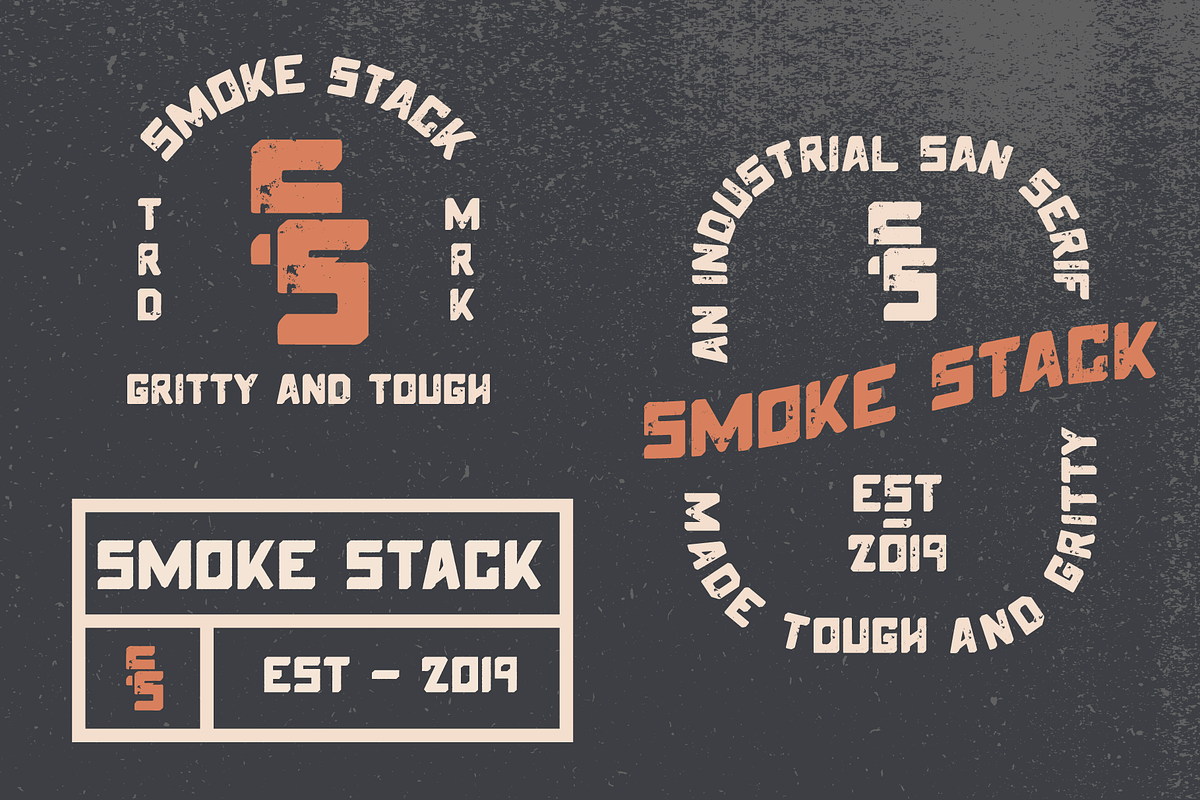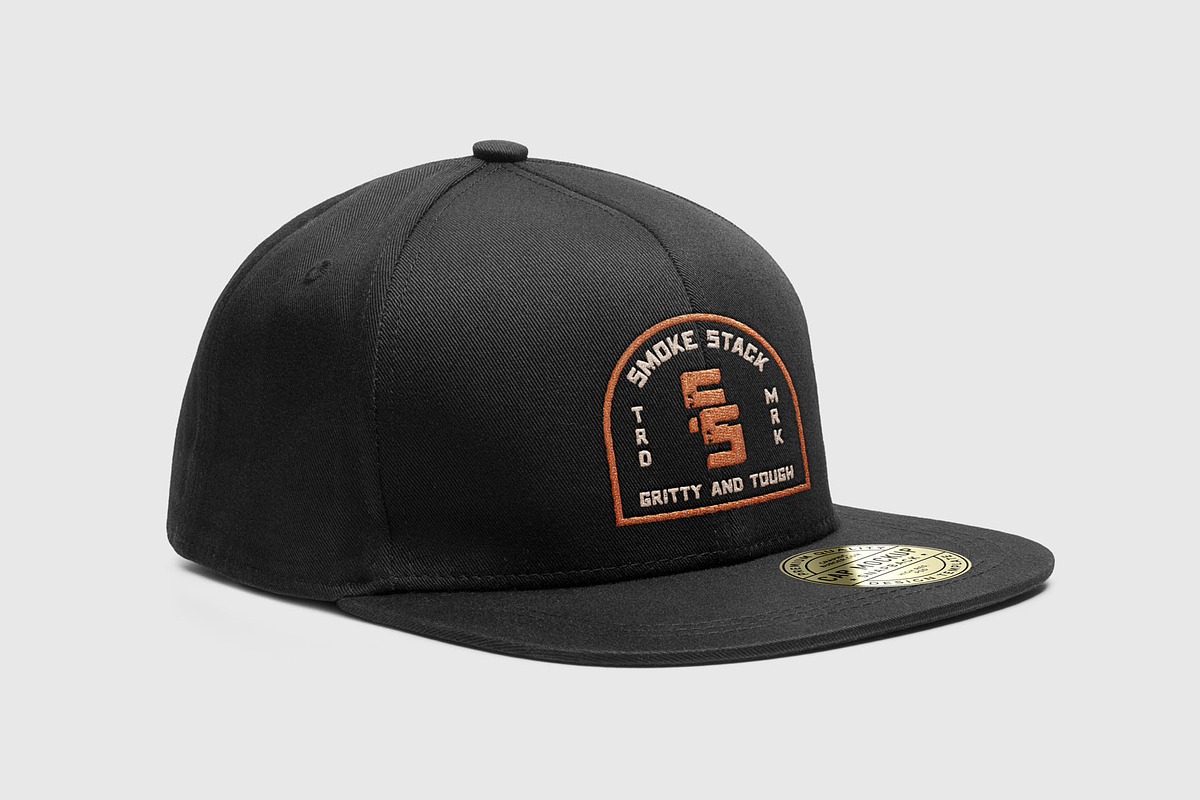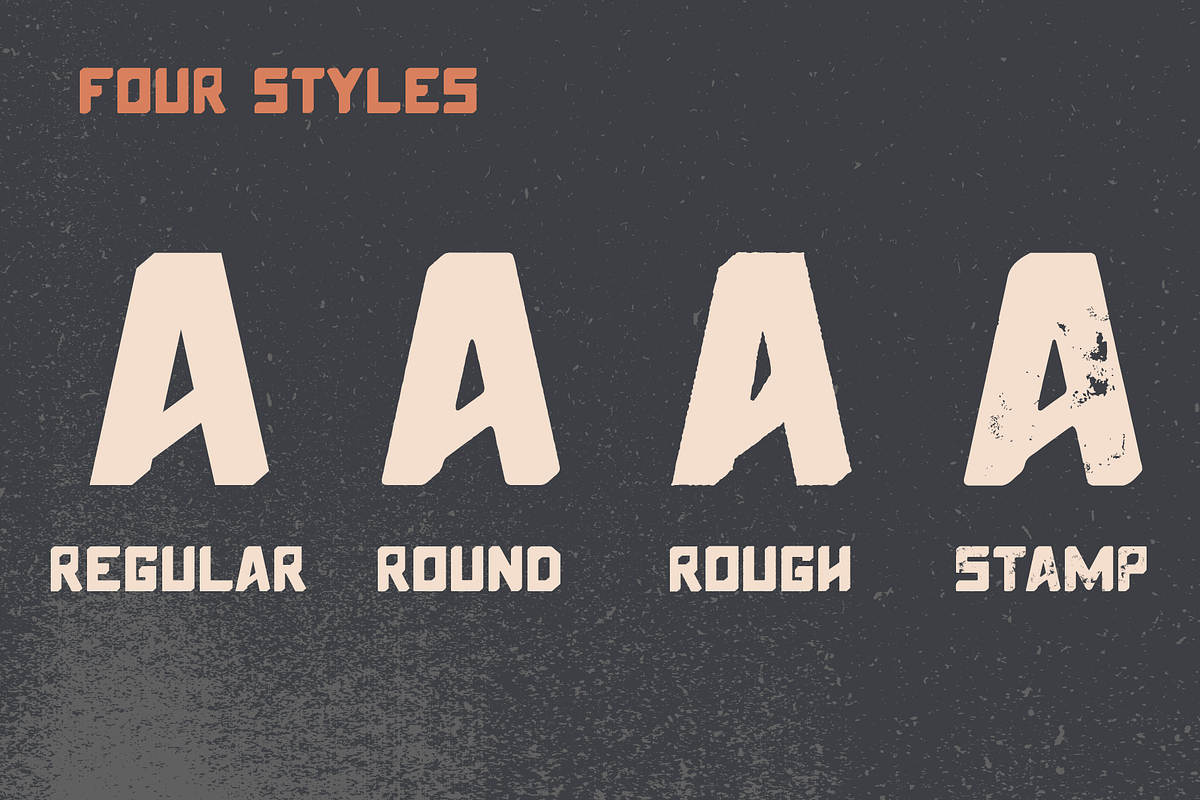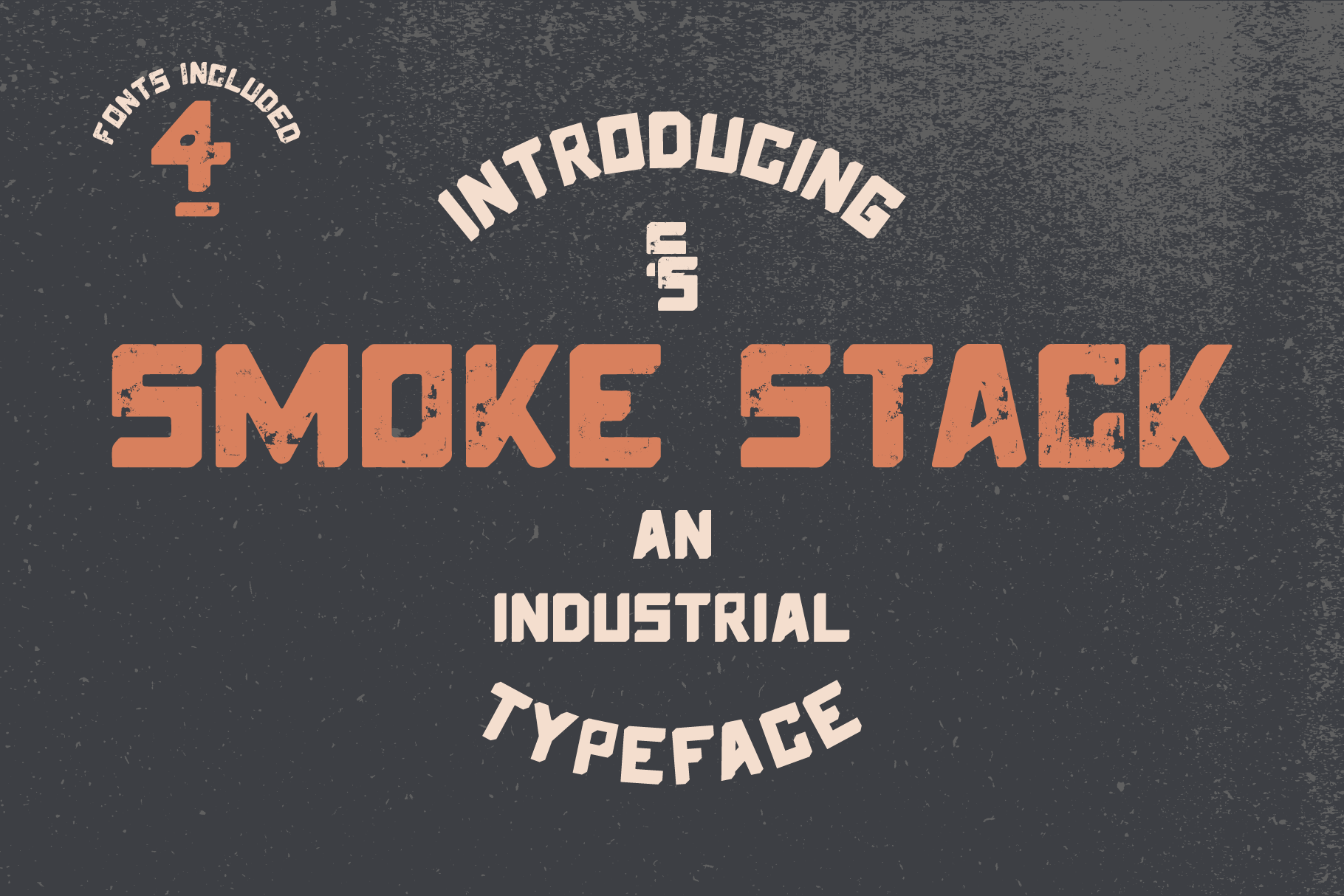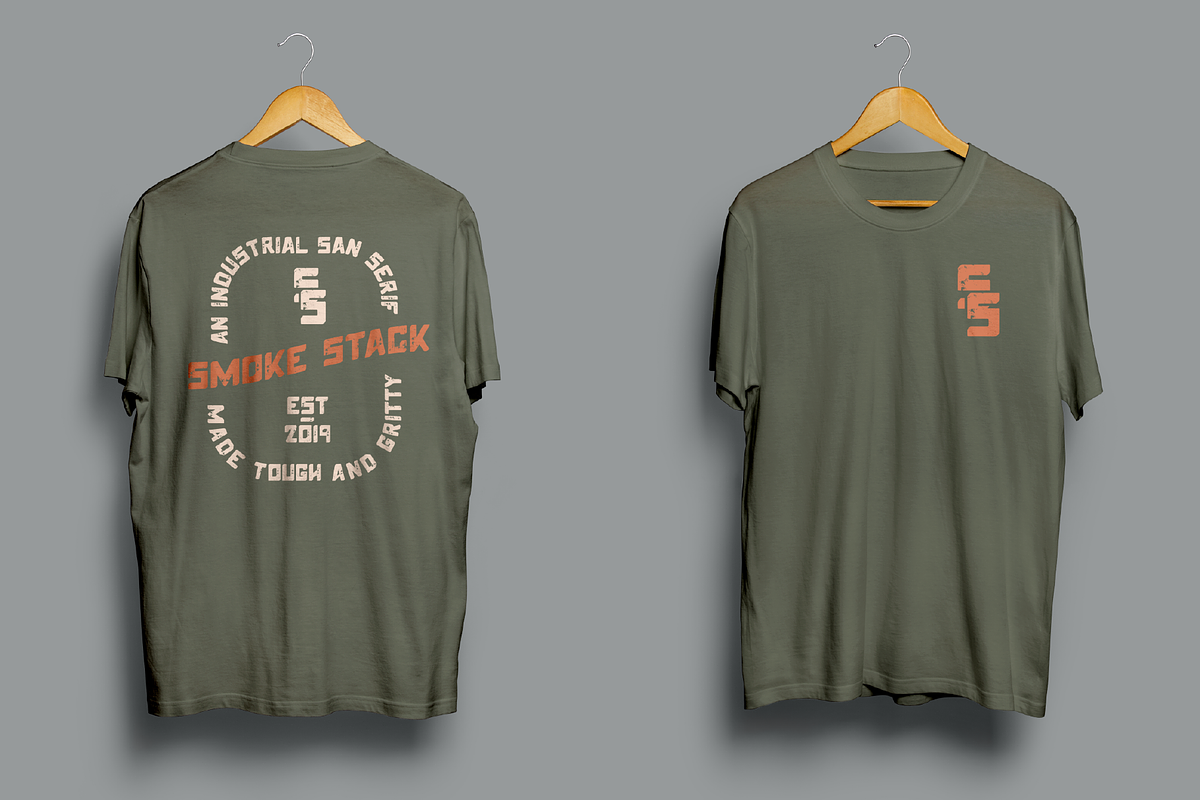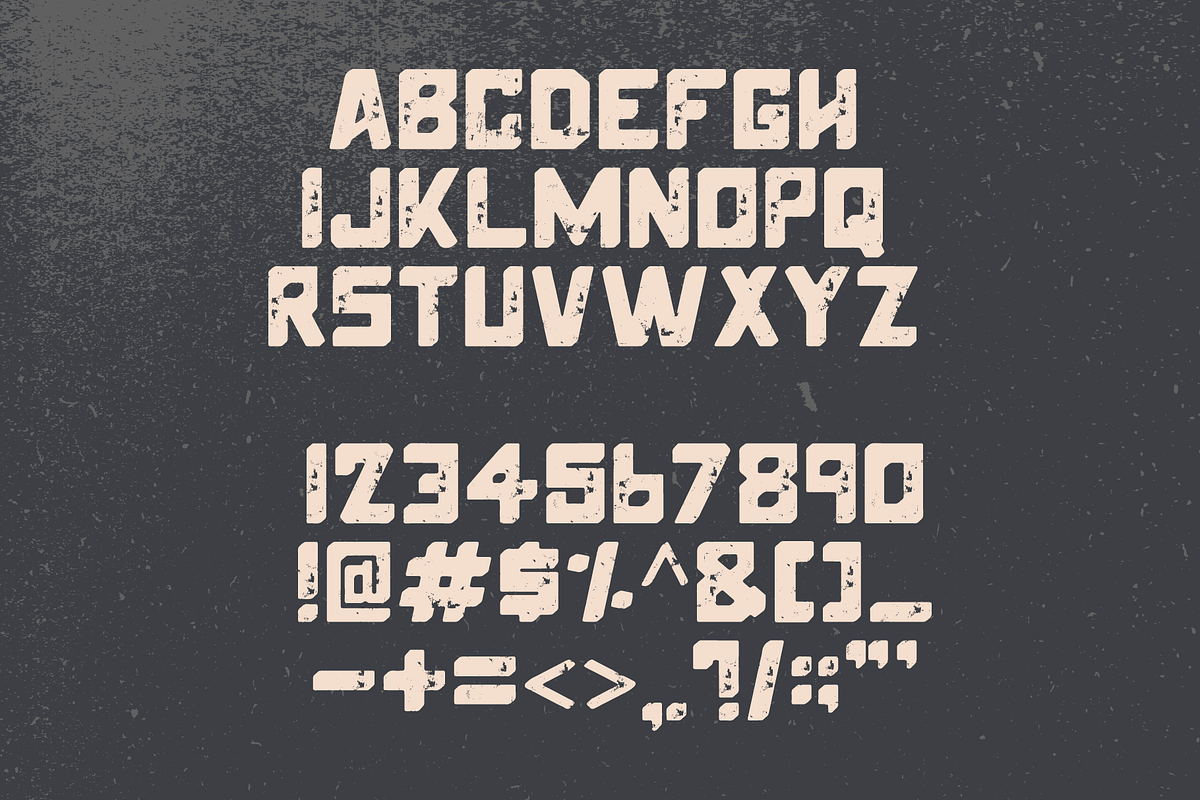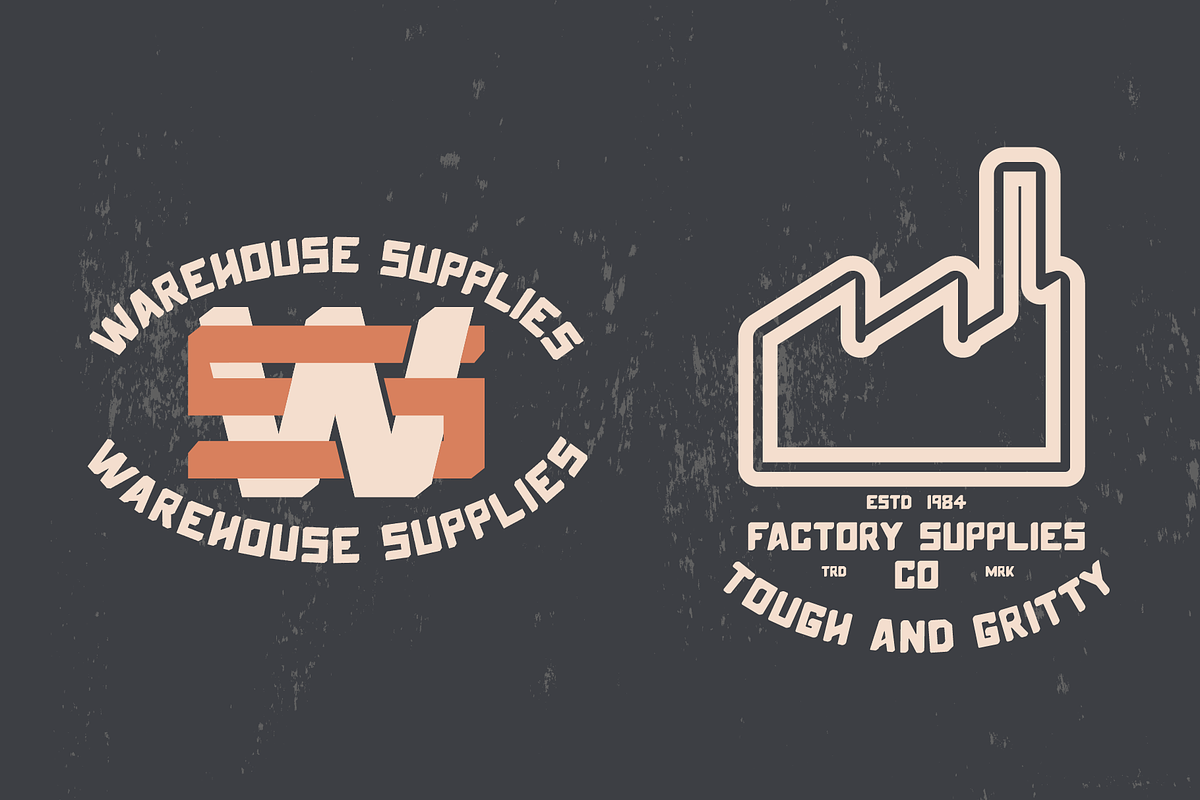
Smoke Stack Font Family (4 Fonts)
Smoke Stack Font Family
Smoke Stack is an Industrial San Serif Font family that includes a Regular, Rounded, Rough and Stamped version. Inspired by the smokey factory settings of the industrial era, Smoke Stack is tough and gritty with a functional versatility. With careful kerning and a full set of punctuation and characters, Smoke stack is perfect for modern fashion and signage, or when you need a font that is tough but reliable.
- Smoke Stack Regular
- Smoke Stack Rounded
- Smoke Stack Rough
- Smoke Stack Stamped